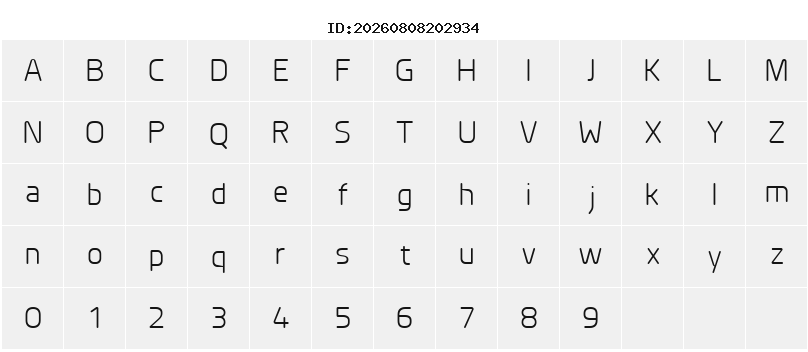
• Font Name: Planer
• Designer: Jonathan Hill
About Planer.ttf
Planer.ttf is a modern, elegant sans-serif font designed for ultimate readability and visual harmony. Perfect for branding, headlines, web design, and print materials.